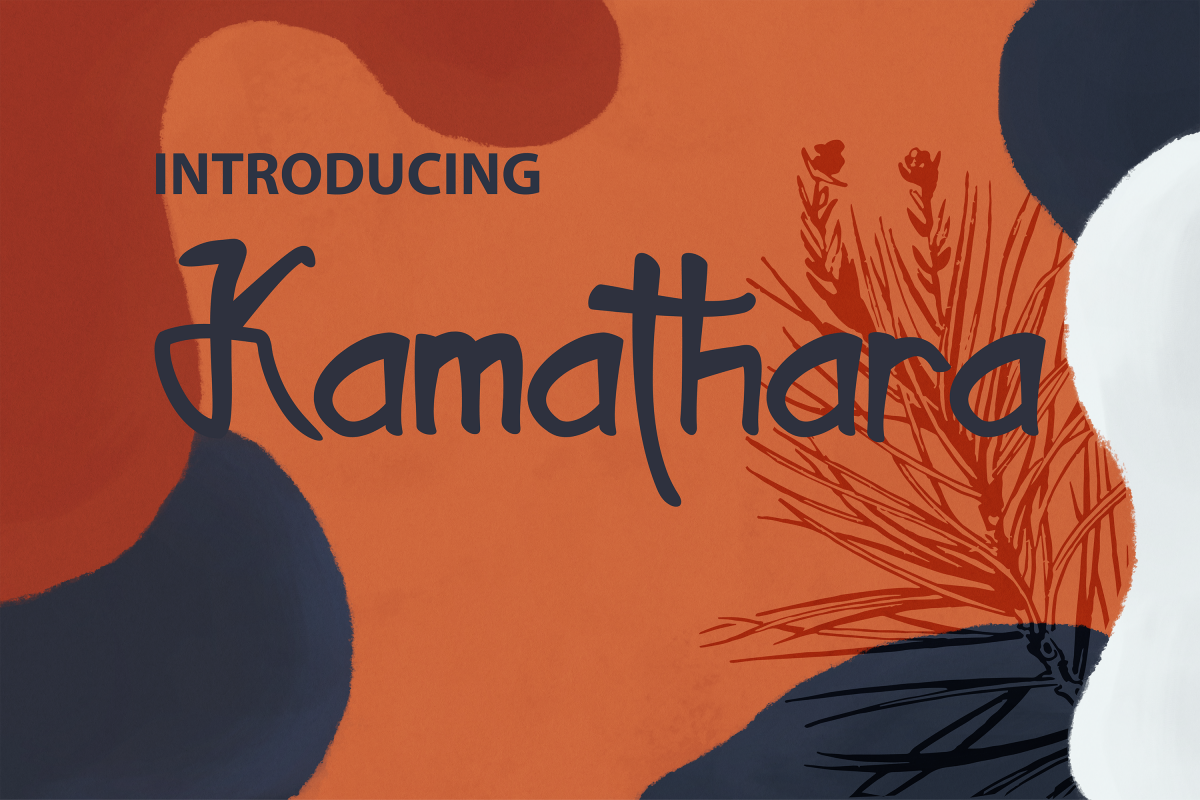
Kamathara UniqueFont
Kamathara font is a font that adopts the concept of uniqueness to each letter form density. This makes kamathara fonts look unique when applied in a design such as logos, browsers, posters, youtube channel logos, apparel, and other designs.